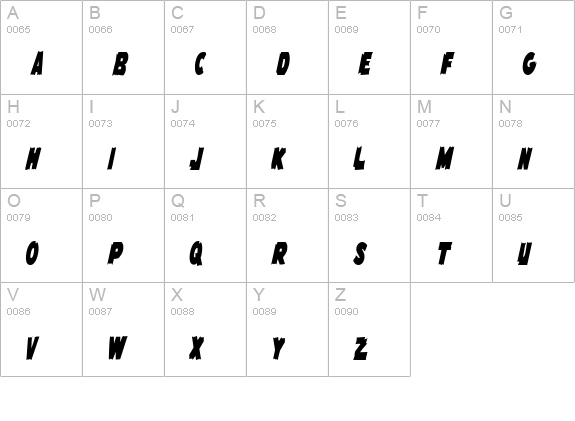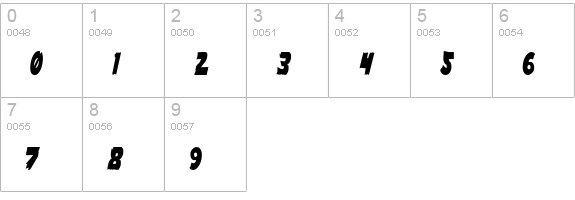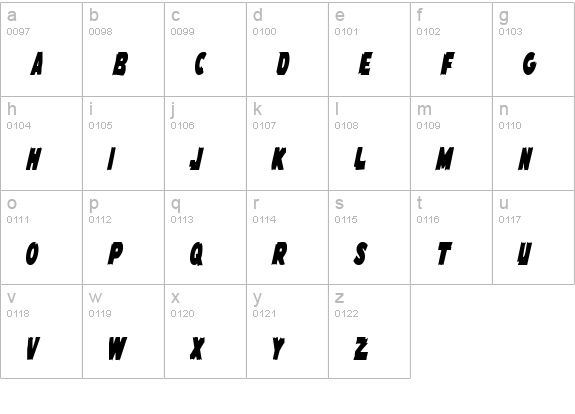
Flying Leatherneck Condensed is a distinctive, condensed-width variant in the Flying typeface family \xE2\x80\x94 well suited to design and typography projects.
Flying Leatherneck Condensed is a bold and striking font that exudes strength and determination. With its sleek and modern design, this font is perfect for creating eye-catching headlines, posters, and banners. The condensed style adds a sense of urgency and dynamism to any project. What sets Flying Leatherneck Condensed apart is not just its impactful appearance, but also the fact that it is completely free to download. Yes, you heard that right - this impressive font is freely available for download at FontsMarket.com. So go ahead and elevate your designs with the powerful and commanding presence of Flying Leatherneck Condensed.